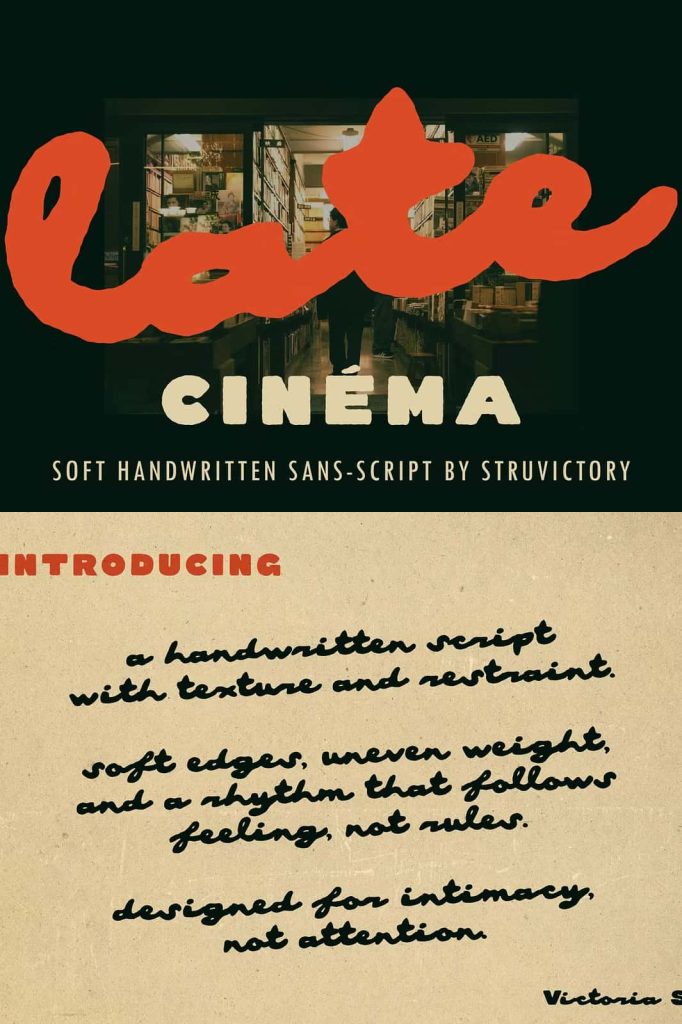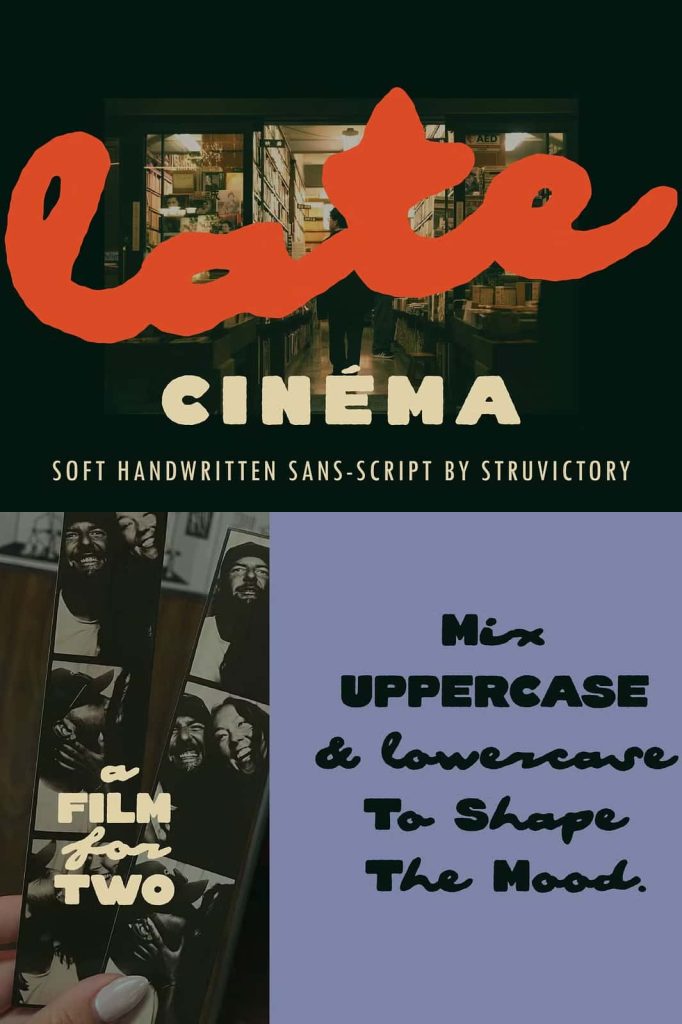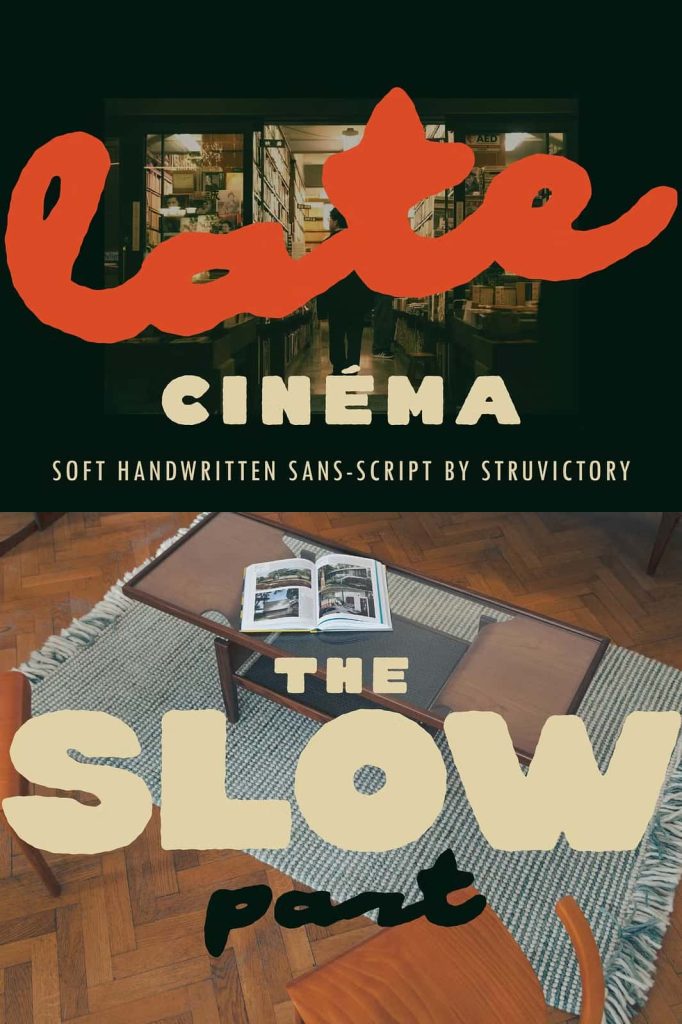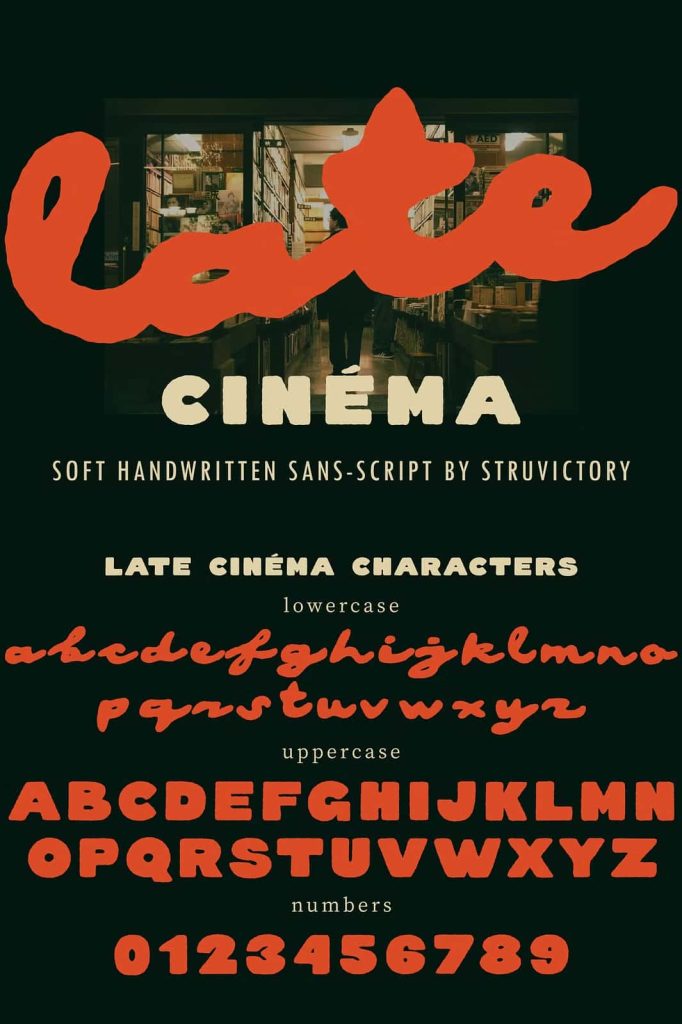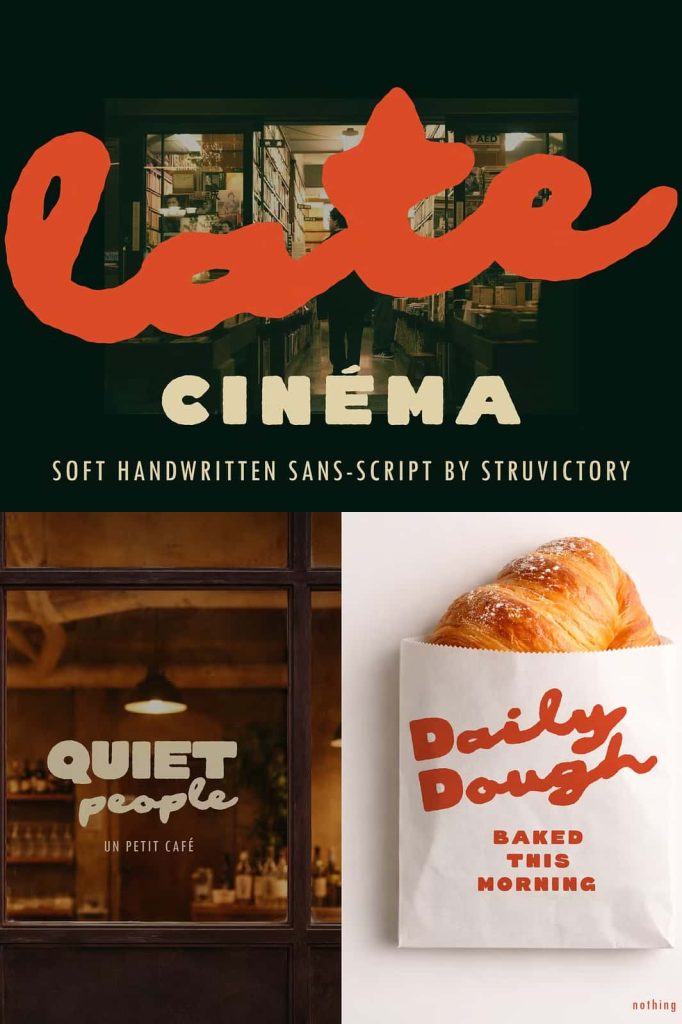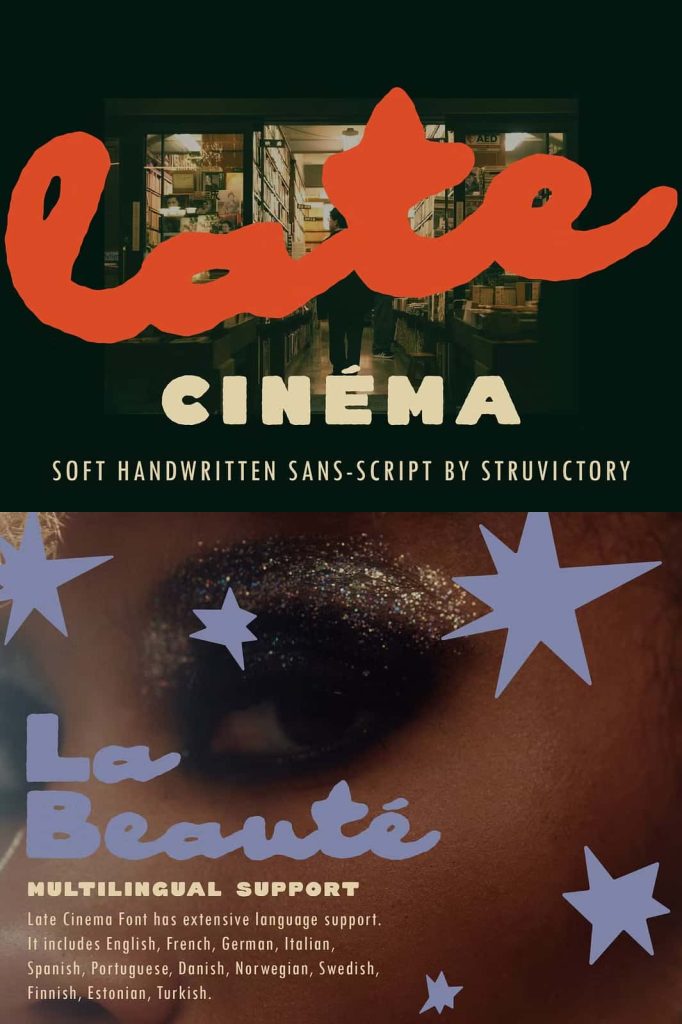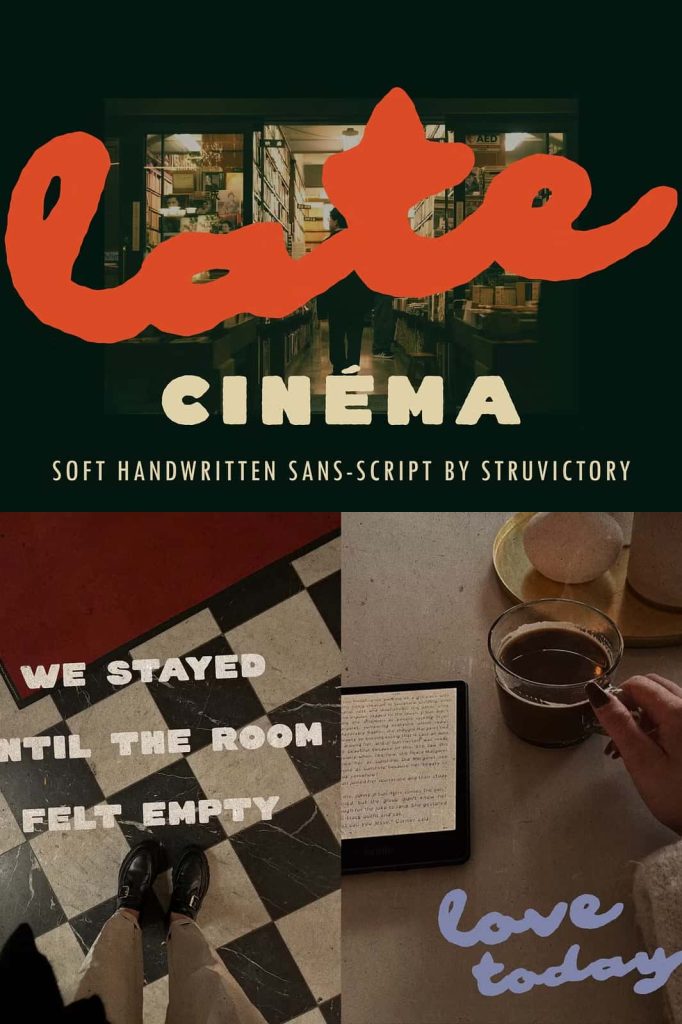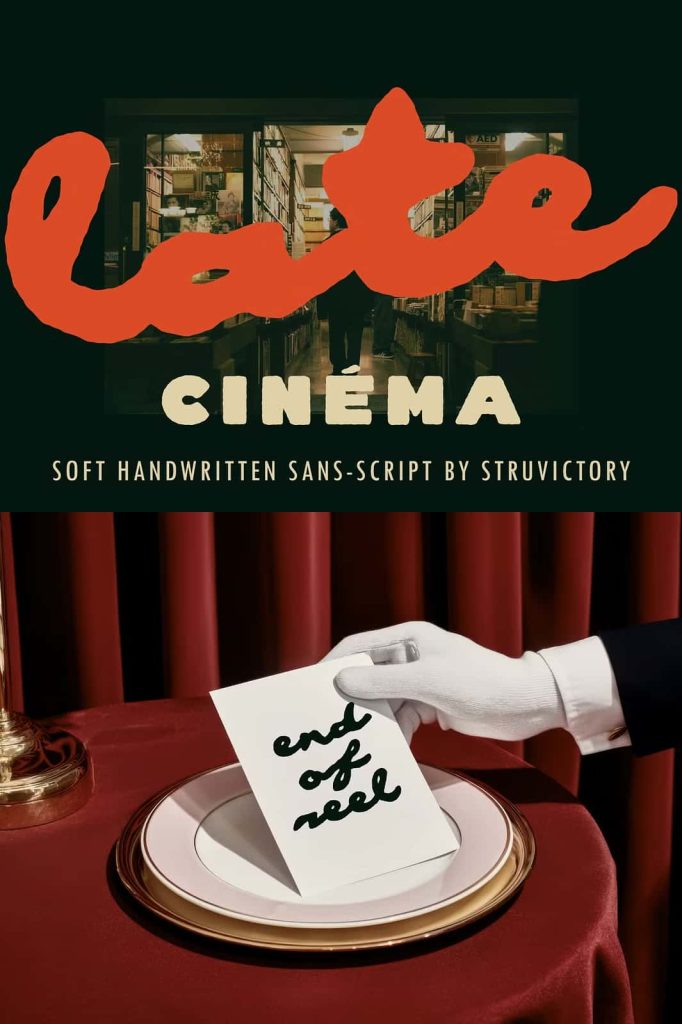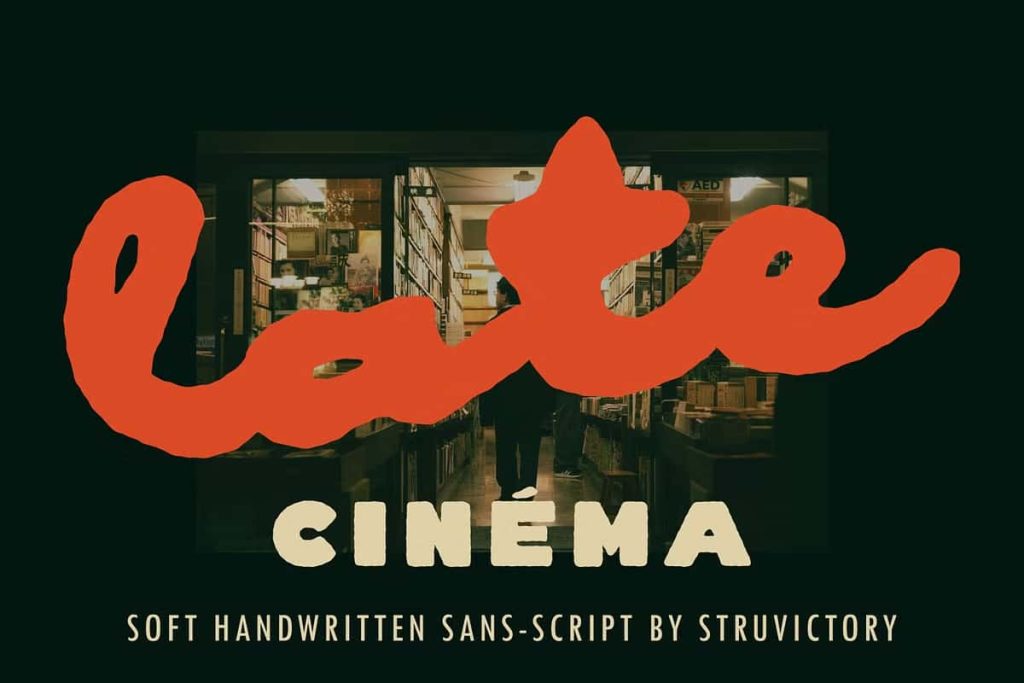
Late Cinema Soft Handwritten Script
Late Cinema Handwritten Font
Late Cinema Handwritten Font is a distinctive and versatile typeface designed to bring together the strength of a bold sans-serif font and the authentic charm of handwritten lettering. This unique combination allows designers, creators, and business owners to create visually compelling projects that feel both professional and personal. Whether you are developing a brand identity, designing promotional materials, creating social media graphics, or crafting eye-catching packaging, Late Cinema delivers a balanced and memorable visual experience.
The font features strong uppercase characters that command attention instantly. These bold letterforms provide excellent readability and create a powerful presence in headlines, logos, product labels, and large-format designs. At the same time, the elegant lowercase script introduces warmth, personality, and a handcrafted touch that helps designs feel more inviting and genuine. By blending these two styles into a single font family, Late Cinema offers exceptional flexibility for a wide range of creative applications.
Bold Uppercase Letters for Strong Visual Impact
The uppercase characters in Late Cinema are designed to stand out. Their bold construction creates a confident and professional appearance that works exceptionally well for titles, branding elements, marketing materials, and advertising campaigns. These letters help establish a strong visual hierarchy, making important messages easier to notice and remember.
Designers can use the uppercase style to create powerful logos, prominent headlines, event posters, and product packaging that immediately captures attention. The clean structure of the characters ensures excellent legibility across both digital and print platforms, making Late Cinema a practical choice for professional design projects.
Natural Handwritten Script with Personality
The lowercase script introduces a softer and more personal element to the typeface. Inspired by natural handwriting, these characters flow smoothly and create a sense of authenticity that resonates with modern audiences. The script style adds movement, texture, and visual interest while maintaining readability.
This handwritten quality makes Late Cinema particularly effective for lifestyle brands, creative businesses, personal projects, invitations, greeting cards, and social media content. The script creates an emotional connection with viewers, helping brands communicate warmth, creativity, and individuality.
Perfect Balance Between Structure and Creativity
One of the greatest strengths of Late Cinema Handwritten Font is its ability to balance structured typography with expressive handwritten details. This combination allows designers to create layouts that feel polished without appearing overly formal. The contrast between bold uppercase letters and flowing lowercase script adds depth and character to any design.
Whether you are creating a minimalist brand identity or a vibrant marketing campaign, Late Cinema adapts effortlessly to different visual styles. Its versatility allows it to complement modern, vintage, artistic, and contemporary design aesthetics while maintaining a distinctive personality.
Ideal Uses for Late Cinema Font
• Brand identity and logo design
• Business branding materials
• Product packaging and labels
• Poster and flyer design
• Social media graphics and content
• Website headers and promotional banners
• Editorial layouts and magazine covers
• Invitations, greeting cards, and stationery
• Creative marketing campaigns
• Personal and commercial design projects
Why Choose Late Cinema Handwritten Font?
Late Cinema offers more than just attractive typography. It provides designers with a flexible creative tool that combines impact and emotion in a single typeface. The bold uppercase letters establish authority and visibility, while the handwritten script adds warmth and authenticity. This dual-purpose design helps communicate messages effectively while creating memorable visual experiences.
For businesses and creatives looking to stand out in competitive markets, Late Cinema delivers a unique visual voice that feels modern, approachable, and professional. Its carefully crafted letterforms ensure consistent performance across branding projects, digital media, print materials, and promotional designs.
Whether you need a font for a striking logo, an engaging poster, elegant packaging, or compelling social media content, Late Cinema Handwritten Font provides the perfect combination of boldness and personality. Its ability to merge strong typography with natural handwritten expression makes it an excellent choice for designers seeking versatility, creativity, and lasting visual impact.